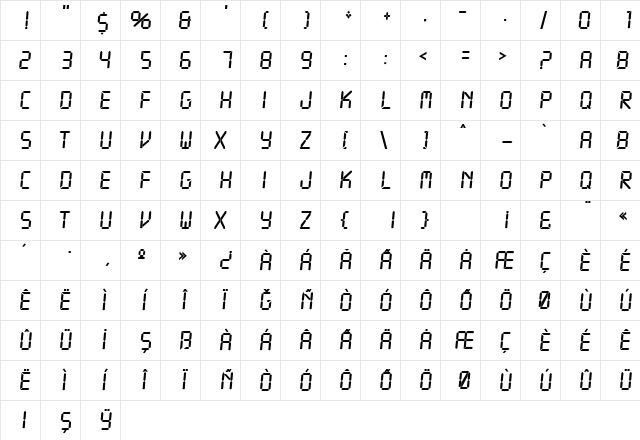
LCD Regular Font Preview
LCD Regular
LCD Regular Font Details
Design Context for LCD Typeface
LCD is a composed and adaptable typeface that performs quietly and consistently across a wide range of design contexts.